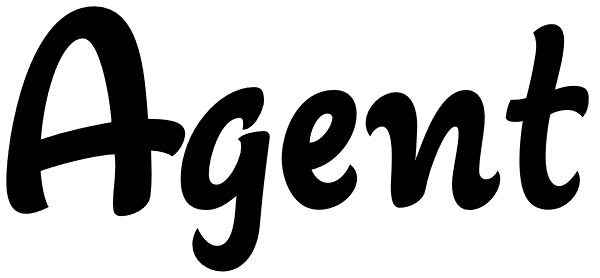
Agent
Agent was inspired by the classic fun lettering of 1930s Dutch alphabetician Martin Meijer. Casual and playful, Agent is a carefully considered amalgam of the art brush's organic forms and the easily read, ironic forms of the comic book. Ideal for...